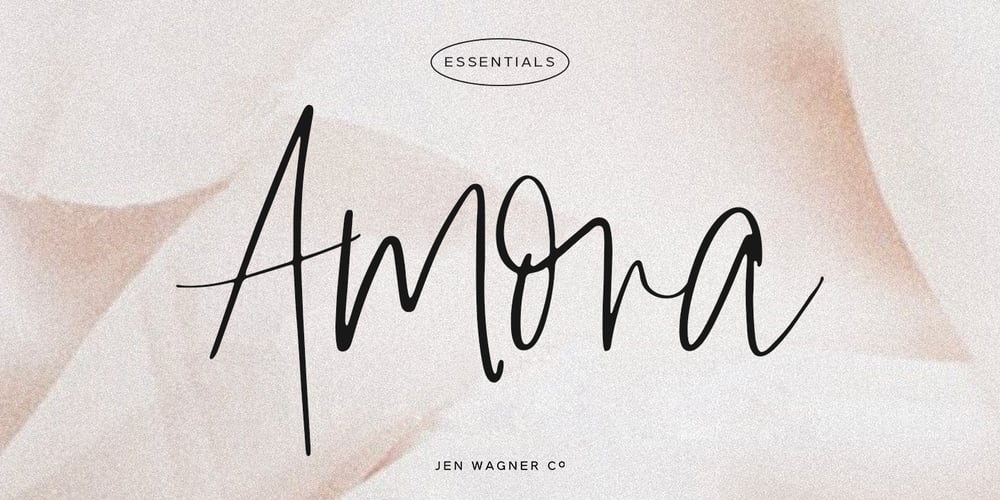
Amora Font Family was designed by Jen Wagner and published by Jen Wagner Co.. Amora contains 1 styles and family package options. Amora is a messy, feminine, carefree script that is perfect for logos, posters, signage, and more! Fonts I paired with in the samples are Adobe Caslon, Proxima Nova (both available through www.typekit.com) and Bebas Neue.Comes with 79 ligatures for a totally unique hand-written feel!Includes: Upper + Lowercase Letters w/ alternates Non-English support 79 Ligatures Best for: Logos Branding Large format writing Feminine look + feel Paired with sans serifs (Proxima Nova, Bebas) and classic serifs (Adobe Caslon, Baskerville) Web headers Signage Wedding invitations and decor (table numbers, signage, balloons, etc.) Not best for: Small printing Long quotes (generally flows better with just a few words) Patterned backgrounds